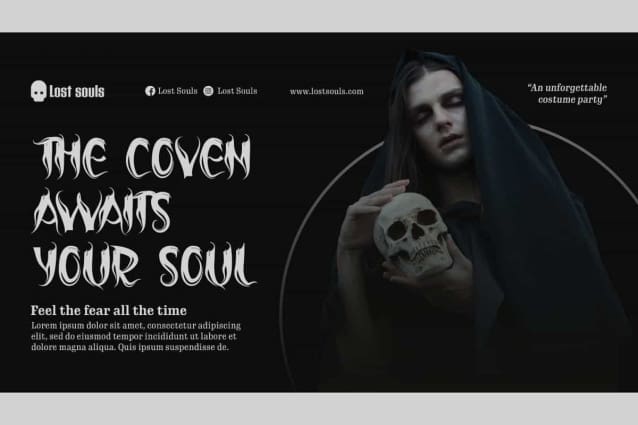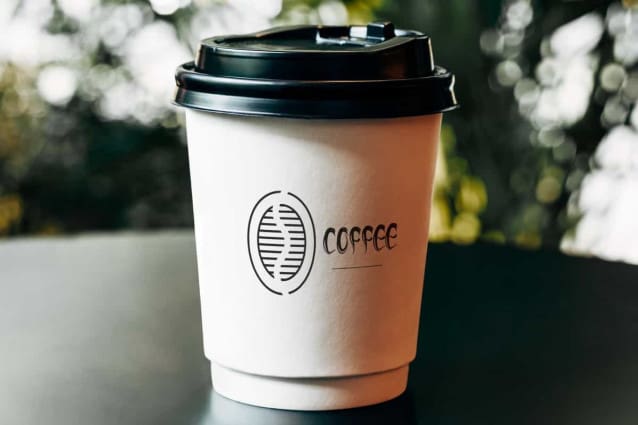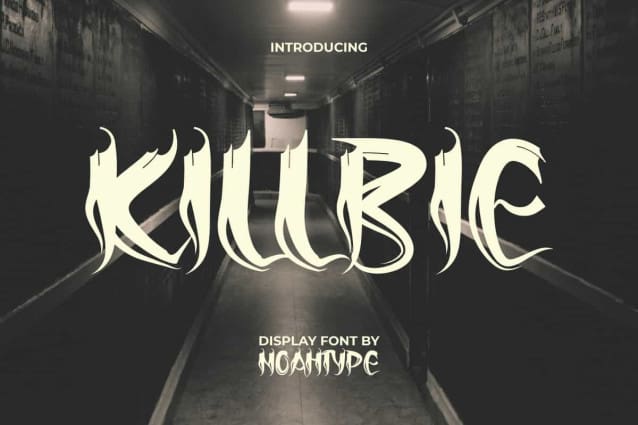
Killbie Display Font
Killbie Display Font is a unique artistic brush display font with horror theme by NoahType. This font has a concept like paint that is smeared using fingers, giving a scary impression. It will be perfect for any designs, such as blogs, brand image, cover, custom design, invitation, label, marketing material, menu, poster, product packaging, quote, signage, stationery, t-shirt screen printing, website, and many more!
Killbie Display Font includes full set of ALL CAPS for Uppercase and Lowercase Basic Characters, Numerals, Punctuation, and Symbol. The characters of this font will give amazing touch and also a perfect choice for many industries, such as accessories, advertising, art, café, clothing brand, event or festival, fashion, film, game, movie, printing, publishing, etc.